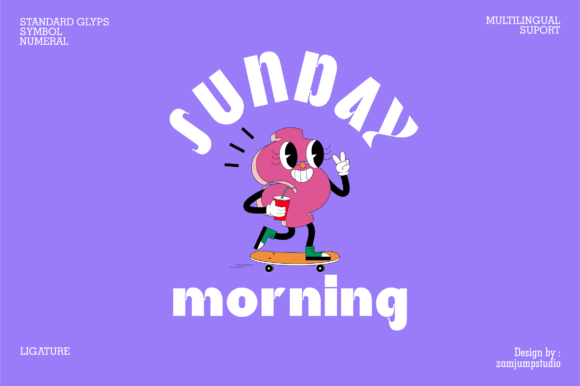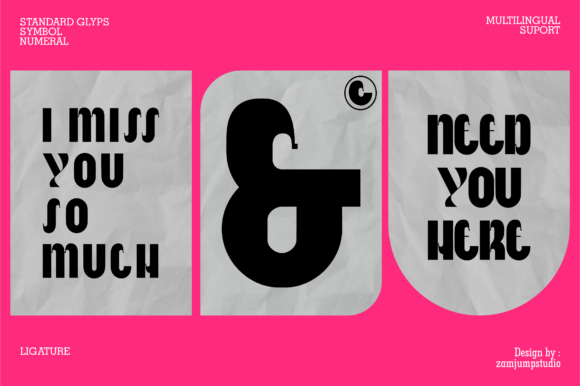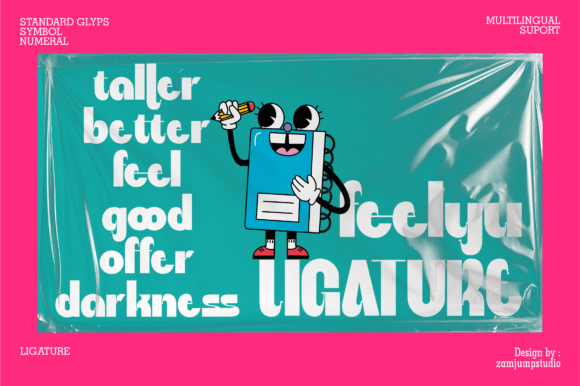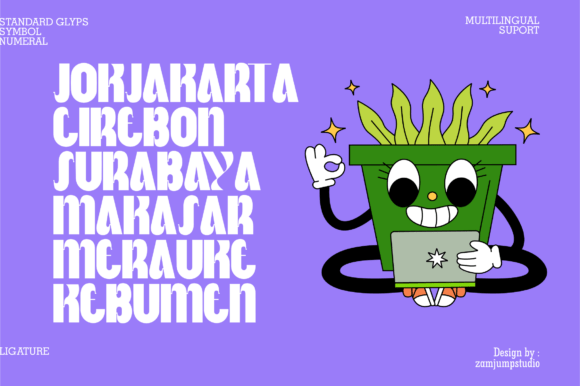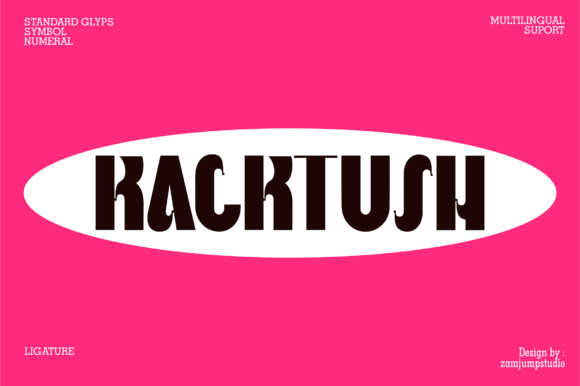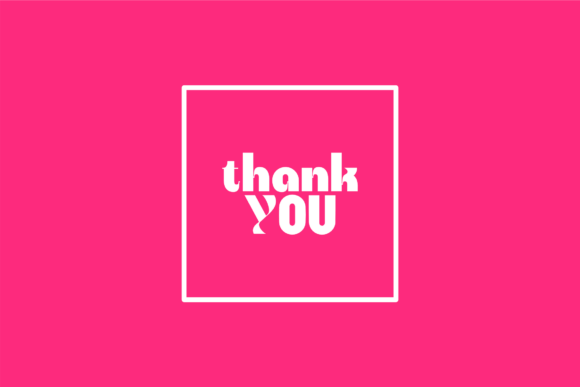
Introducing Feelyu Font: The Ultimate Modern Sans Display Font for Creative Projects
In the world of design, fonts play a crucial role in conveying the tone and personality of a brand or project. With the numerous font options available, finding the perfect one that combines style, versatility, and uniqueness can be a daunting task. However, if you’re looking for a modern sans display font that brings a cheerful and friendly touch to your designs, look no further than Feelyu Font.
What is Feelyu Font?
Feelyu is a unique and versatile modern sans display font designed to elevate your creative projects. Its clean and simple style makes it an excellent choice for a wide range of applications, from logos and product labels to posters and more. With Feelyu, you can add a touch of friendliness and approachability to your designs, making it perfect for brands and projects that aim to connect with their audience on a personal level.
Key Features of Feelyu Font
So, what makes Feelyu stand out from the rest? Here are some of its key features:
- Clean and Simple Style: Feelyu’s minimalist design ensures that your message is conveyed clearly and effectively, without any distractions.
- Cheerful and Friendly Touch: The font’s unique style adds a playful and approachable feel to your designs, making it perfect for brands that want to connect with their audience.
- Stylish Ligature Features: Feelyu includes stylish ligature features that allow you to create beautiful and intricate designs, adding an extra layer of sophistication to your projects.
- Versatility: Feelyu is a versatile font that can be used for a wide range of creative projects, from bold statements to fun and inviting designs.
Why Choose Feelyu Font?
With so many font options available, why should you choose Feelyu? Here are just a few reasons:
- Unique and Memorable: Feelyu’s unique style ensures that your designs stand out from the crowd and leave a lasting impression on your audience.
- Ease of Use: Feelyu is incredibly easy to use, making it perfect for designers of all skill levels.
- High-Quality Design: Feelyu is designed with high-quality and precision, ensuring that your designs look professional and polished.
Feelyu Font is perfect for designers and crafters who want to add a touch of personality to their projects. Whether you’re working on a logo, product label, poster, or any other creative project, Feelyu is the perfect font to enhance your design aesthetics.
Tips for Using Feelyu Font
Here are some tips for using Feelyu Font in your designs:
- Experiment with Ligatures: Take advantage of Feelyu’s stylish ligature features to add an extra layer of sophistication to your designs.
- Play with Font Sizes: Feelyu looks great in a variety of font sizes, so don’t be afraid to experiment and find the perfect size for your project.
- Pair with Other Fonts: Feelyu pairs well with other fonts, so feel free to get creative and find the perfect font combination for your project.
In conclusion, Feelyu Font is a unique and versatile modern sans display font that’s perfect for designers and crafters who want to add a touch of personality to their projects. With its clean and simple style, stylish ligature features, and cheerful and friendly touch, Feelyu is the perfect font to enhance your design aesthetics. So why wait? Download Feelyu Font today and take your designs to the next level!